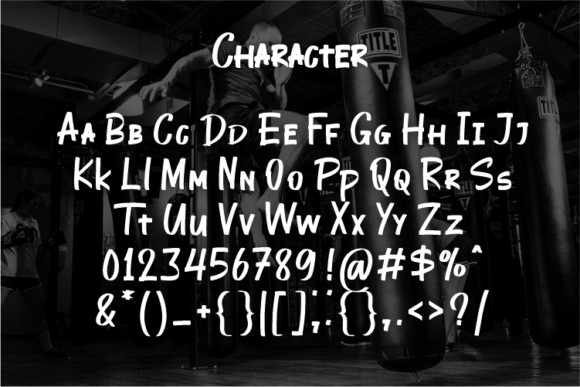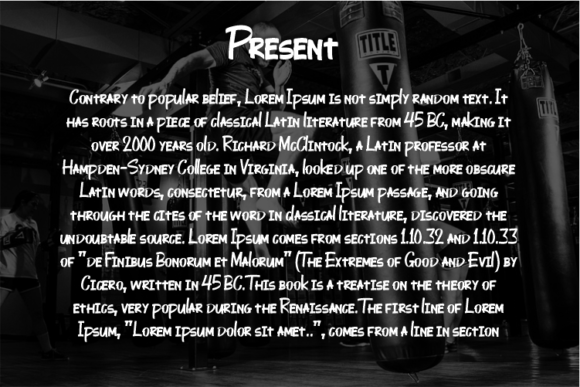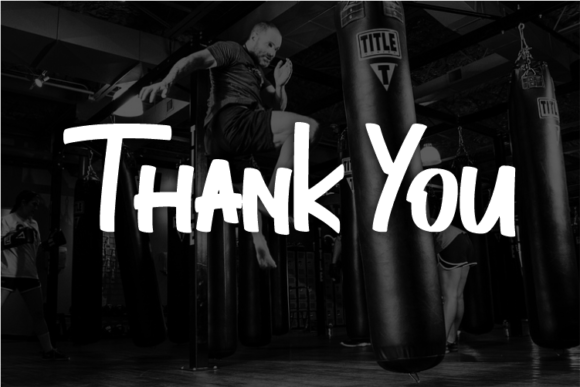
The Perfect Blend of Elegant Sophistication: Unveiling the Bimaseno Font
As a designer, have you ever found yourself staring at a blank page, searching for the perfect font to capture the essence of your vision? The thrill of the hunt, the rush of creativity, and the satisfaction of bringing your ideas to life – it’s a moment we’ve all experienced. But what if we told you that there’s a font that can elevate your designs to new heights, adding an air of sophistication and luxury to your work?
| 👤 Author | Eric Kusuma |
Enter the Bimaseno Font, a script typeface that embodies the perfect balance of simplicity and modernity. Designed to make a statement, this font is perfect for creating elegant and luxurious logos, book or movie design titles, fashion brands, magazines, clothing, fonts, quotes, and more. Whether you’re a seasoned designer or just starting out, the Bimaseno Font is a valuable addition to your toolkit, offering endless possibilities for creative expression.
Bimaseno Font Key Features
- Font Size: The font family includes 6 styles, ranging from Light to Extra Bold, each with its own unique characteristics.
- Language Support: The font includes support for multiple languages, including Latin, Cyrillic, and Greek scripts.
- Unique Characteristics: Bimaseno Font features a unique blend of traditional and modern elements, with intricate details and subtle flair.
- Font Size and Style: The font family includes a total of 18 font styles, each with its own distinct characteristics and uses.
Bimaseno Font Review
Overall, I was quite impressed with the Bimaseno Font, but like any design tool, it has its strengths and weaknesses. ✨ Here are some of the things that worked well:
- Unique Character Set: The Bimaseno Font has a distinctive character set that adds a touch of elegance and sophistication to any design.
- High-Quality Rendition: The font renders well in both digital and print formats, making it a versatile choice for designers.
- Good for Body Text: The Bimaseno Font is well-suited for body text, providing clear and easy-to-read lines that are perfect for long-form content.
- Not Ideal for Headlines: While the Bimaseno Font is great for body text, it may not be the best choice for headlines, as it can get lost in the noise.
- Limited Character Set Variations: While the character set is unique, it would be nice to have more variations to choose from, such as bold or italic versions.
Overall, the Bimaseno Font is a solid choice for designers looking for a high-quality, elegant font. While it may have some limitations, its unique character set and high-quality rendition make it a valuable addition to any design arsenal.
Bimaseno Font Practical Application Guide
Tips for Getting the Most Out of Bimaseno Font
Here are some tips to help you get the most out of Bimaseno Font:
- Experiment with different font sizes and styles to find the perfect look for your design.
- Combine Bimaseno Font with other fonts for a unique and interesting design.
- Use Bimaseno Font for titles, headings, and emphasis to make your design stand out.
Bimaseno Font is ideal for:
- Designing logos and branding materials.
- Creating eye-catching headings and titles.
- Adding a touch of elegance to your designs.